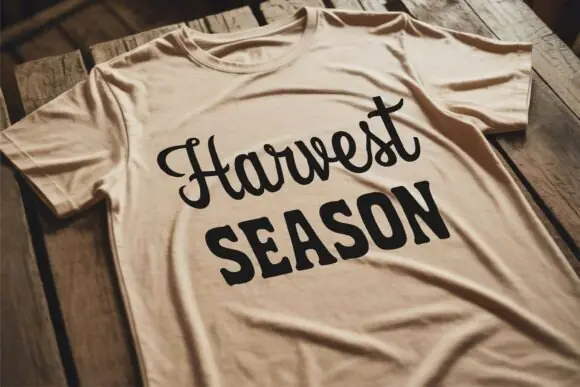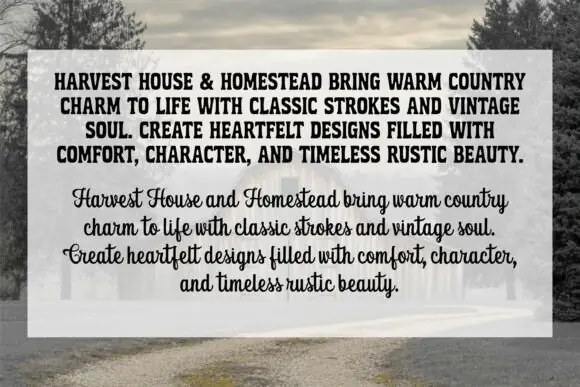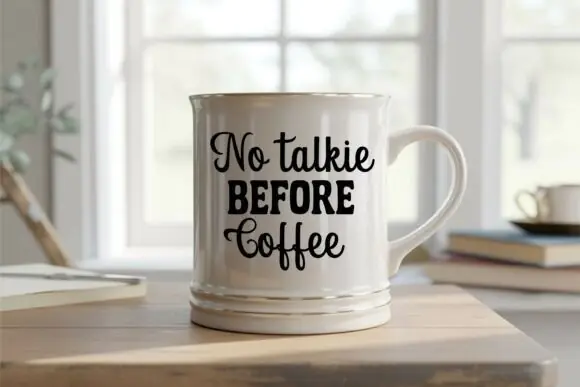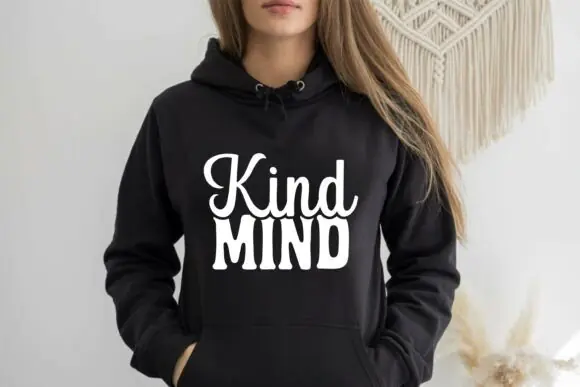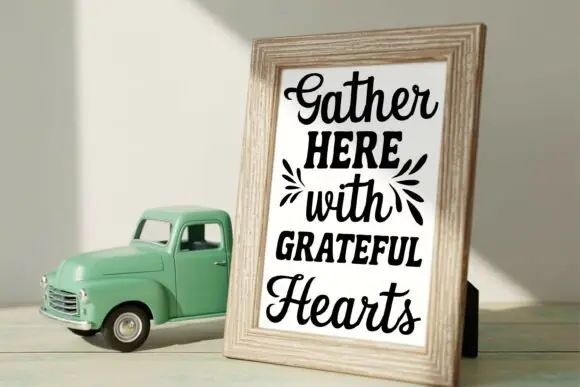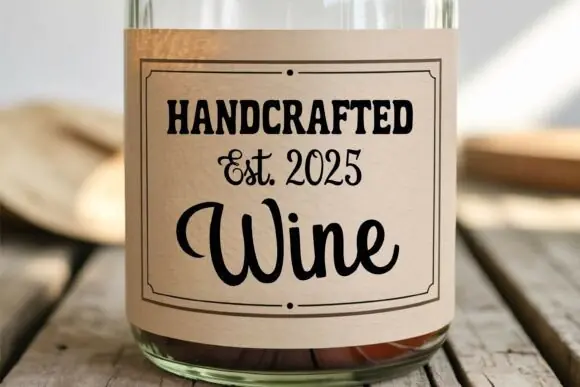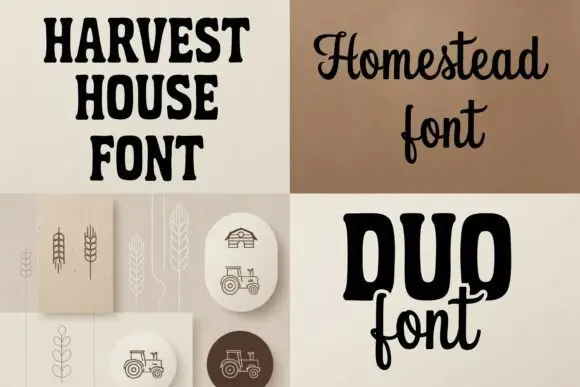
Create warm, rustic, and beautifully handcrafted designs with Homestead Font, a cozy farmhouse-style font bundle that combines antique charm with country-inspired elegance. This font duo includes a strong vintage serif and a smooth script style, making it perfect for creating designs with a natural homestead, farmhouse, rustic market, and country-living feel.
Homestead Font is ideal for signs, labels, t-shirts, logos, stickers, wall art, pantry labels, mugs, quotes, invitations, product packaging, tags, farmhouse décor, and DIY craft projects. Inspired by classic barn lettering, vintage market signs, and cozy home accents, this font bundle brings a genuine handmade look to both print and digital designs.
The serif font works beautifully for bold headlines, rustic logos, and strong display text, while the script font adds a soft, flowing touch for names, quotes, subtitles, and decorative wording. You can use them separately or pair them together to create balanced, charming, and professional farmhouse-style designs.
Homestead Font is a beautiful choice for designers, crafters, farmhouse décor sellers, and small business owners who want to create rustic, soulful, and timeless country-inspired designs.